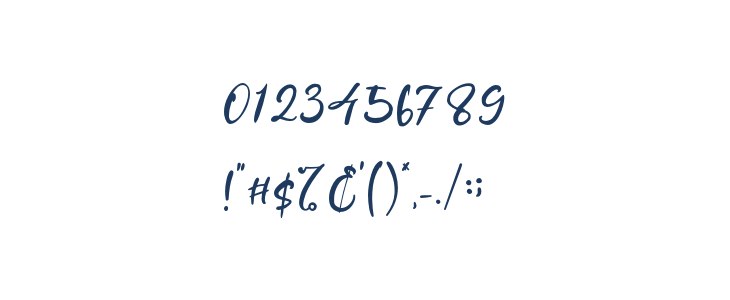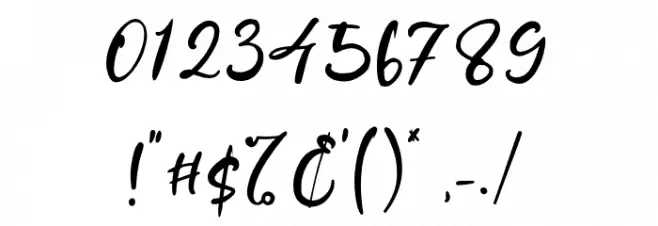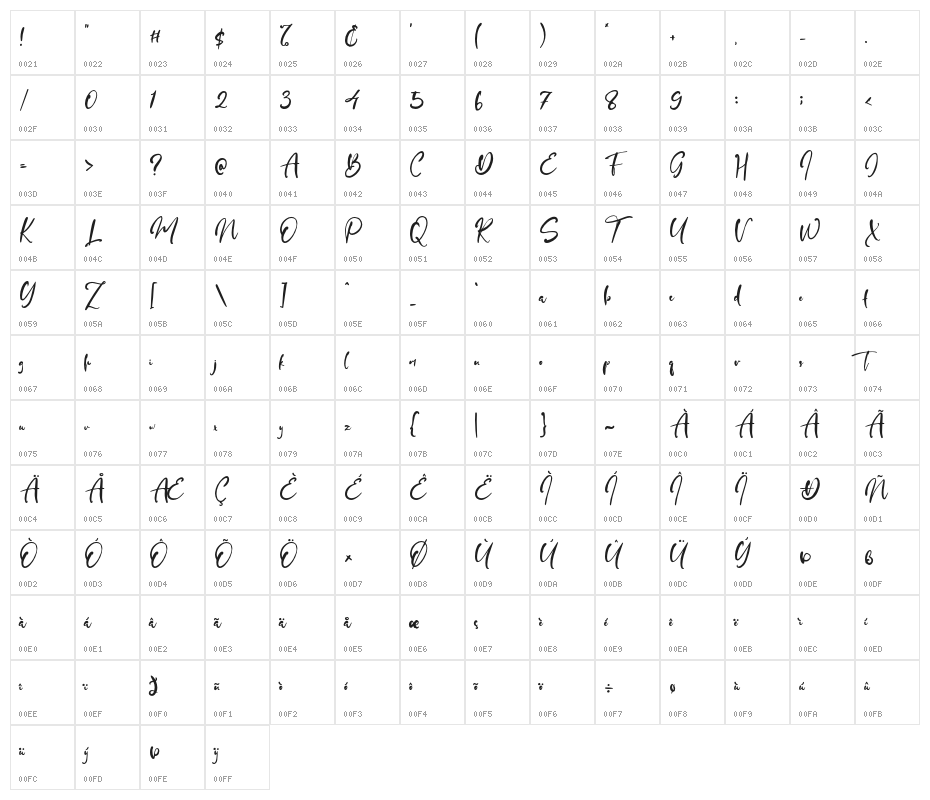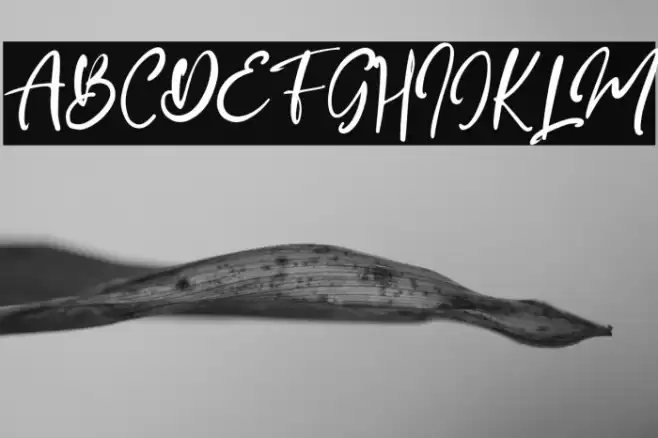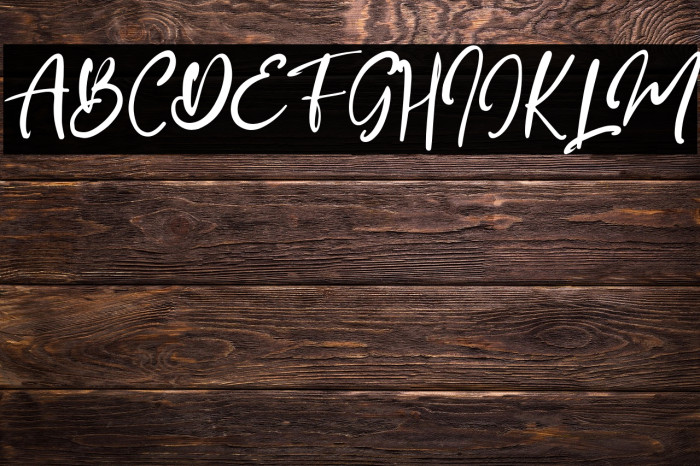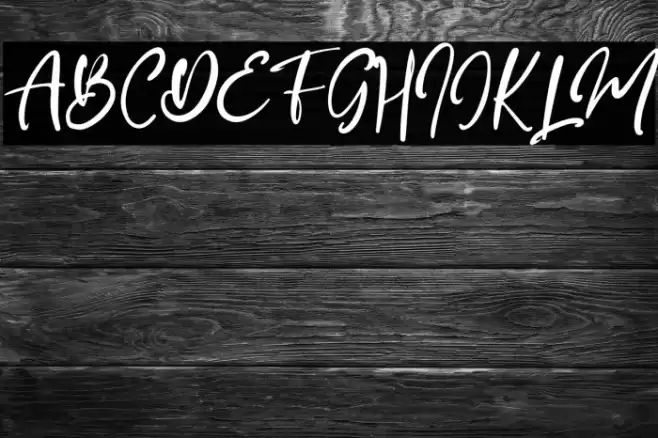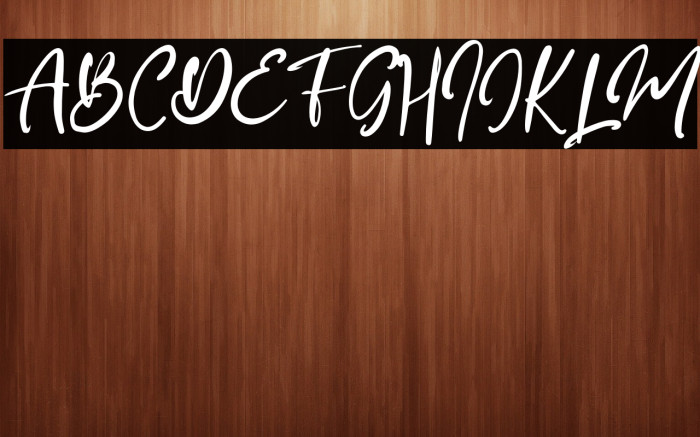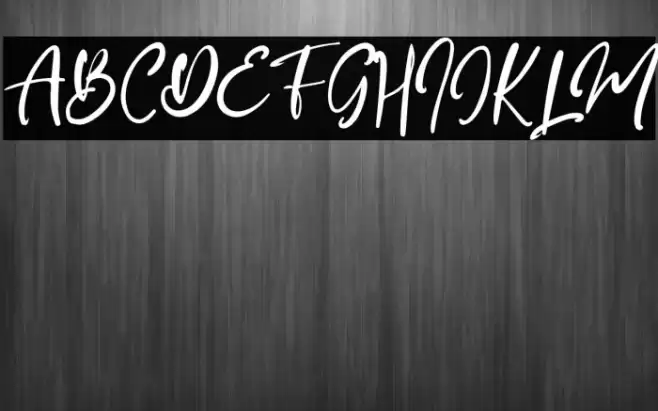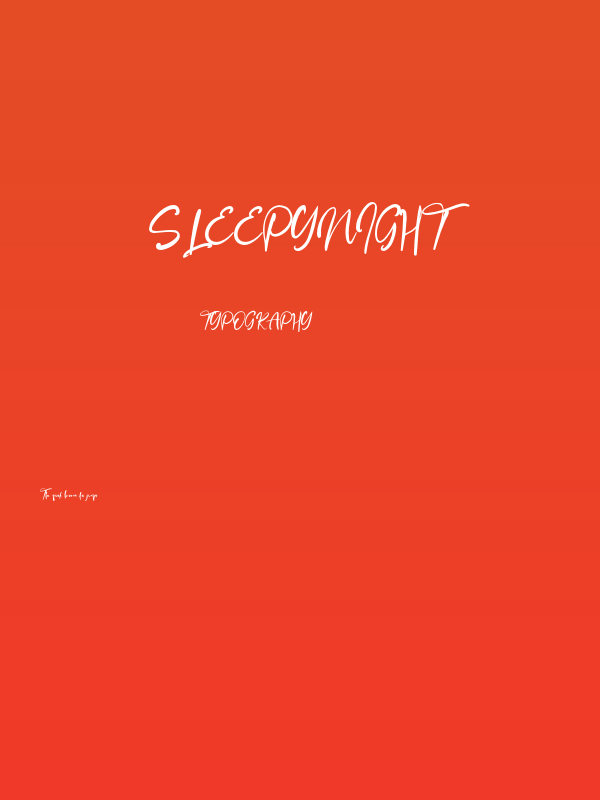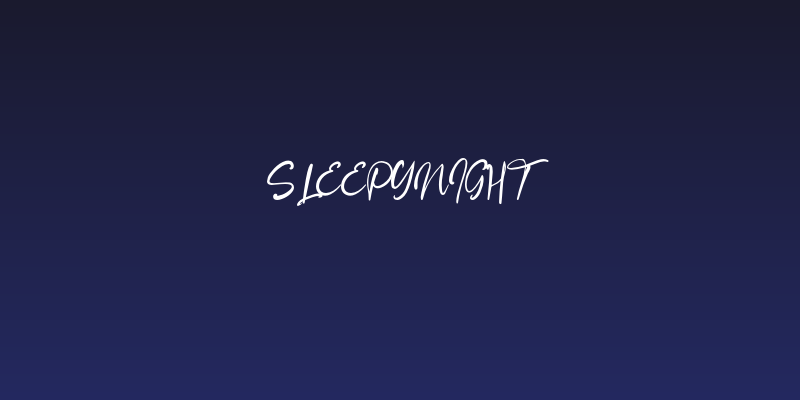
SleepyNight Font
SleepyNight Description
This font features an elegant and flowing script style, characterized by its smooth, cursive strokes and a handwritten appearance. The uppercase letters are bold and dynamic, with sweeping curves and flourishes that give a sense of movement and grace. The lowercase letters maintain a consistent flow, complementing the uppercase with their rounded and connected forms. Numbers and special characters are designed to match the overall aesthetic, ensuring a cohesive look across all text. The font's style is both sophisticated and approachable, making it suitable for a variety of creative applications.